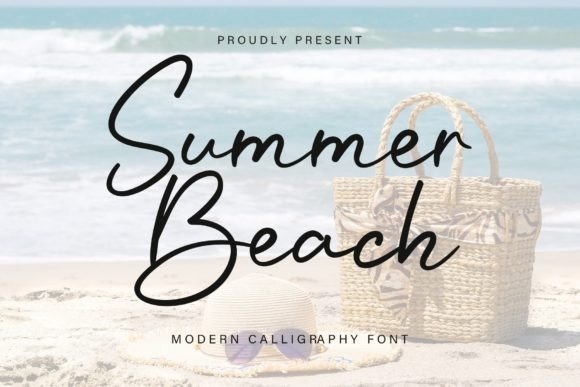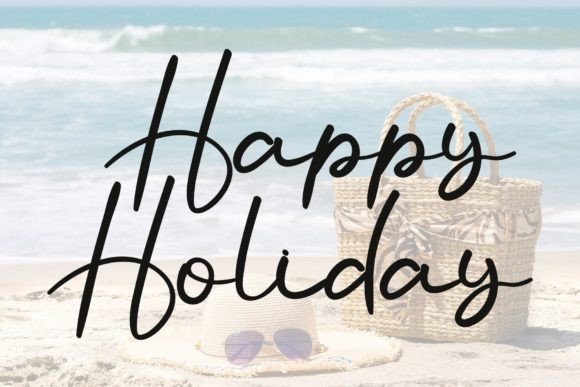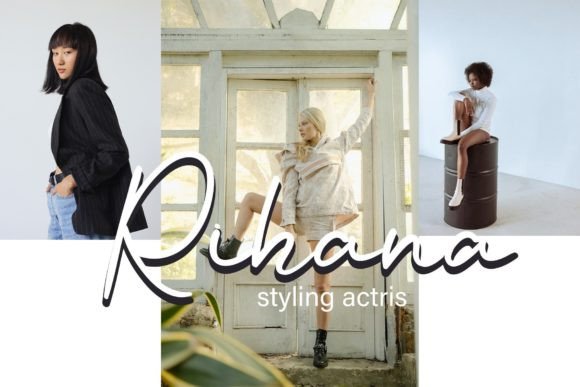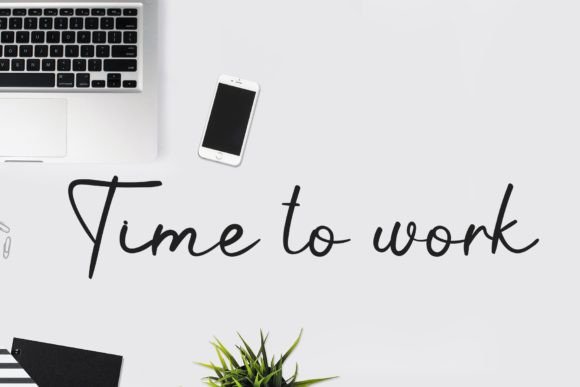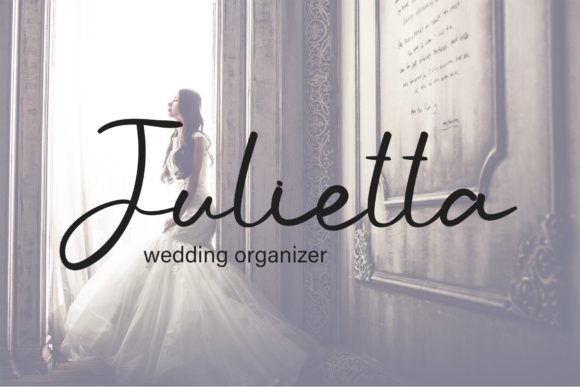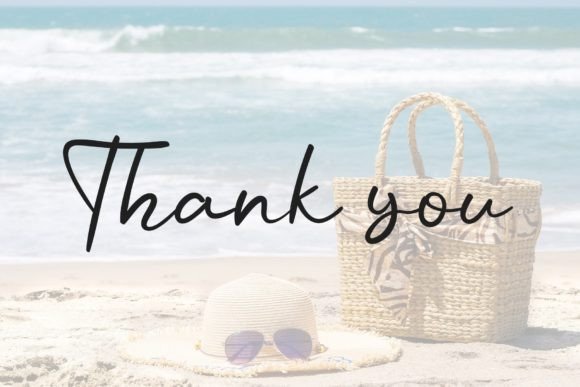
Summer Beach Font
About Summer Beach Font
Summer Beach is a truly enchanting handwritten font that effortlessly captures the essence of carefree days spent by the shore. Its graceful curves and playful strokes make it a perfect choice for a wide spectrum of applications, ranging from charming greeting cards to eye-catching headlines. Designed with meticulous attention to detail, this versatile font is guaranteed to add a touch of romance and whimsy to your next project.
One of the standout features of Summer Beach is its versatility. Whether you’re working on a wedding invitation, a social media post, a logo, or any other design project, this font will seamlessly blend in, enhancing the overall aesthetics with its elegant yet approachable style. The handwritten quality of the font gives your text a personal and human touch, making it ideal for projects that require a warm and friendly vibe.
The fluidity of Summer Beach’s letterforms lends itself well to various creative endeavors. Its smooth, flowing lines evoke a sense of movement, reminiscent of gentle waves caressing the shore. This natural rhythm in the lettering creates a harmonious balance, making it visually pleasing and easy to read. The font’s characters are expertly crafted, ensuring that each letter complements the others, allowing for a cohesive and polished look in your designs.
One of the font’s strengths lies in its ability to convey different moods and emotions. Whether you want to evoke a sense of nostalgia, celebrate love and happiness, or simply add a touch of elegance to your project, Summer Beach can effortlessly adapt to your creative vision. Its romantic feel makes it particularly suitable for projects related to love, such as wedding invitations, anniversary cards, or love-themed posters.
In addition to its aesthetic appeal, Summer Beach is also user-friendly. Its clean and well-defined letterforms make it easy to read, both in print and on-screen. This readability ensures that your message is conveyed effectively, regardless of the context in which it is presented. Furthermore, the font’s clarity allows for creative experimentation with various colors, textures, and backgrounds, giving you the freedom to explore different visual styles while using the same font as your foundation.
Whether you’re a professional graphic designer or someone with a passion for creative projects, Summer Beach is a valuable addition to your font collection. Its timeless charm and adaptability make it a go-to choice for a wide range of design applications. By incorporating Summer Beach into your projects, you can infuse them with a touch of magic and create visually stunning pieces that leave a lasting impression on your audience.
In conclusion, Summer Beach stands as a testament to the beauty of handwritten fonts. Its enchanting aura, coupled with its versatility and user-friendly nature, makes it a must-have for anyone seeking to elevate their designs. So, why wait? Embrace the romance of Summer Beach and let your creativity soar to new heights as you craft captivating and heartfelt designs that resonate with viewers and leave them enchanted.